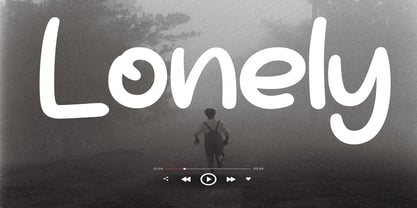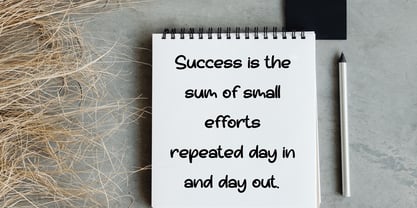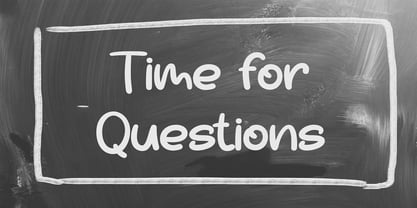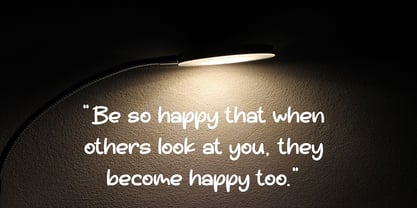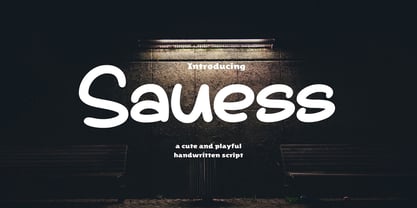
Sauess
by Dream Font
The Sauess Font Family was designed by Jean Evans and published by Dream Font. Sauess contains 1 styles. More about this family
The character set of "Sauess" includes alternative letters and swashes for the lowercase, enhancing both the beginning and end of words. This allows for a customizable and unique touch in every application.
Use it to turn any design idea into a true standout. Get inspired by its unique charm and create lovely designs.